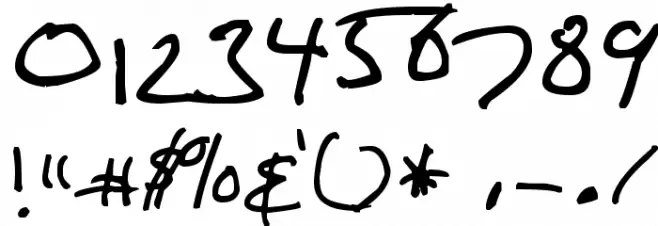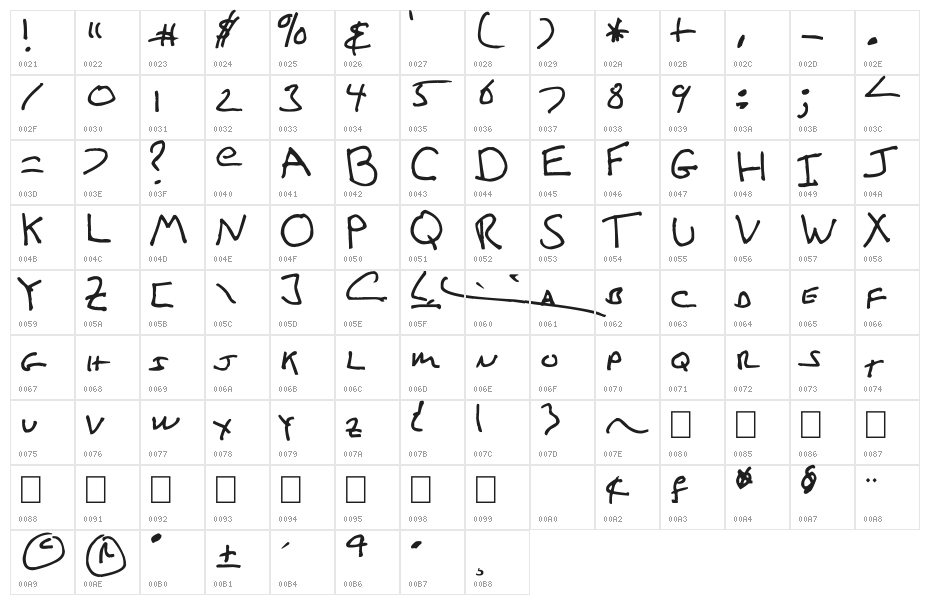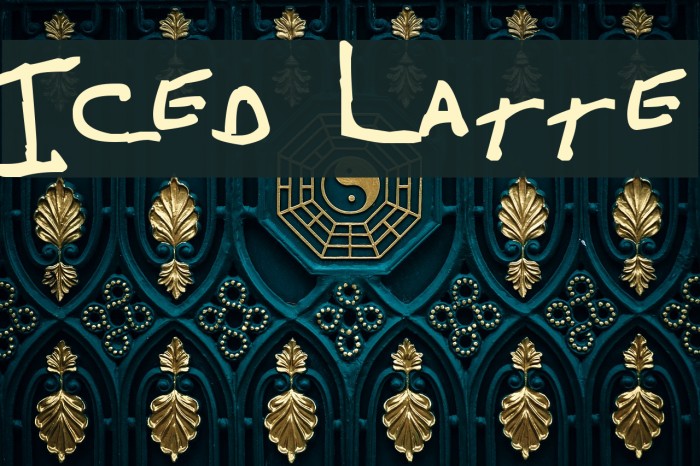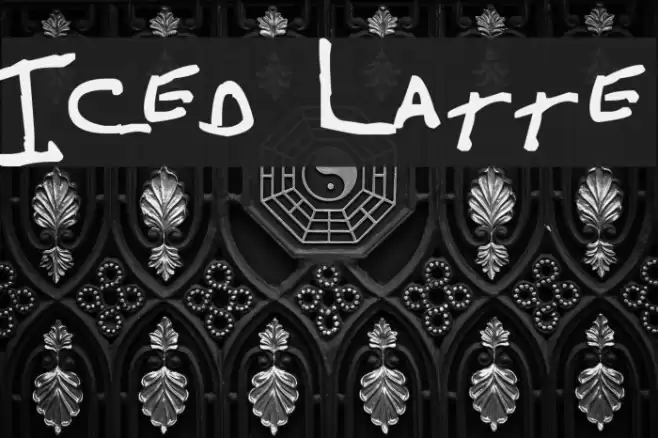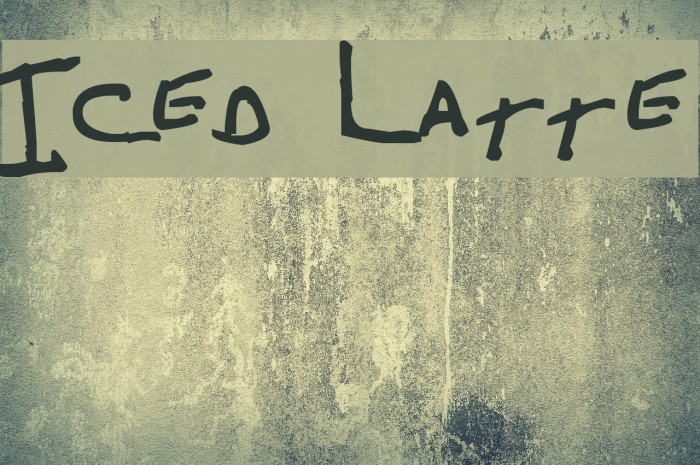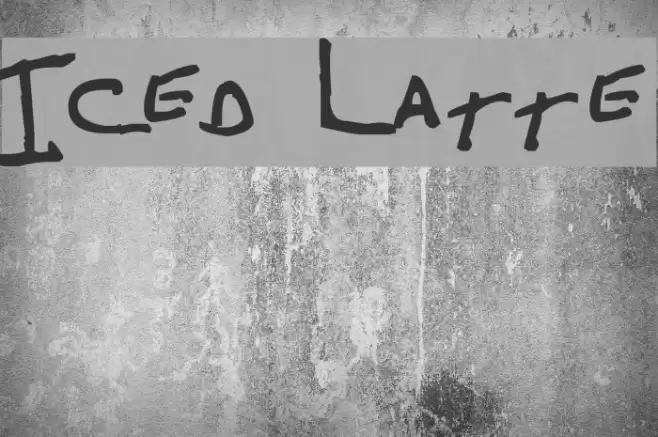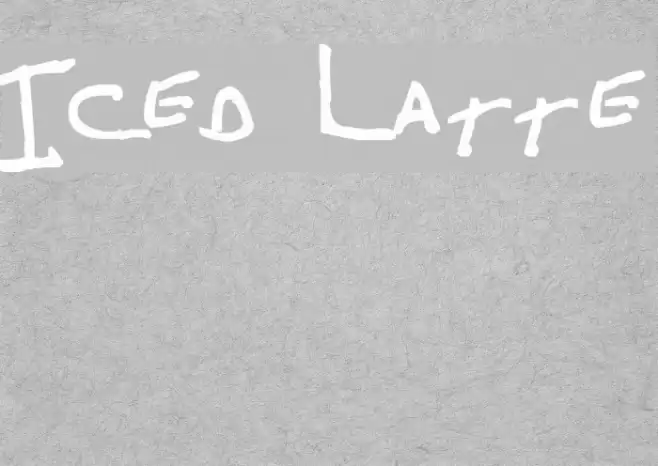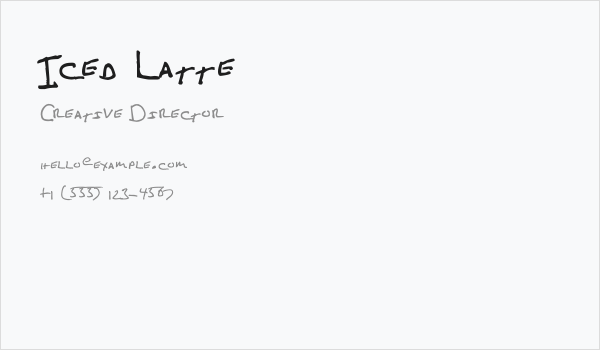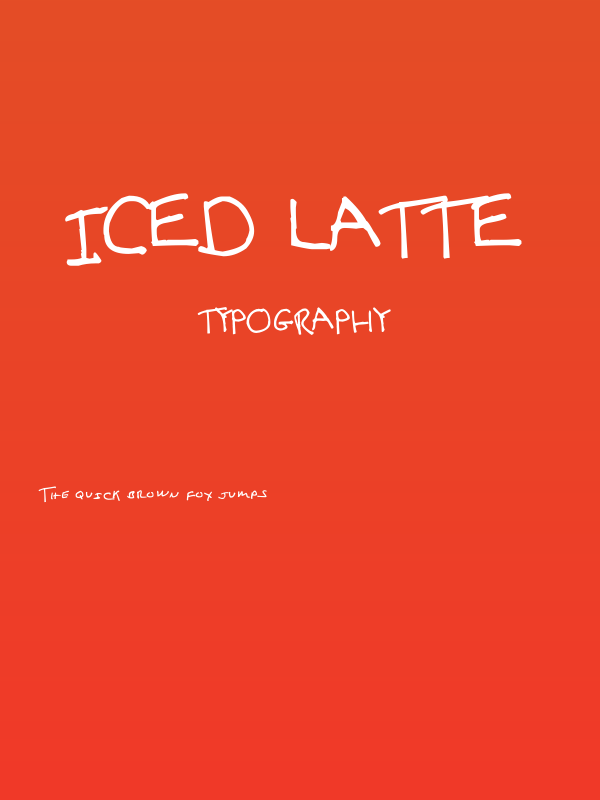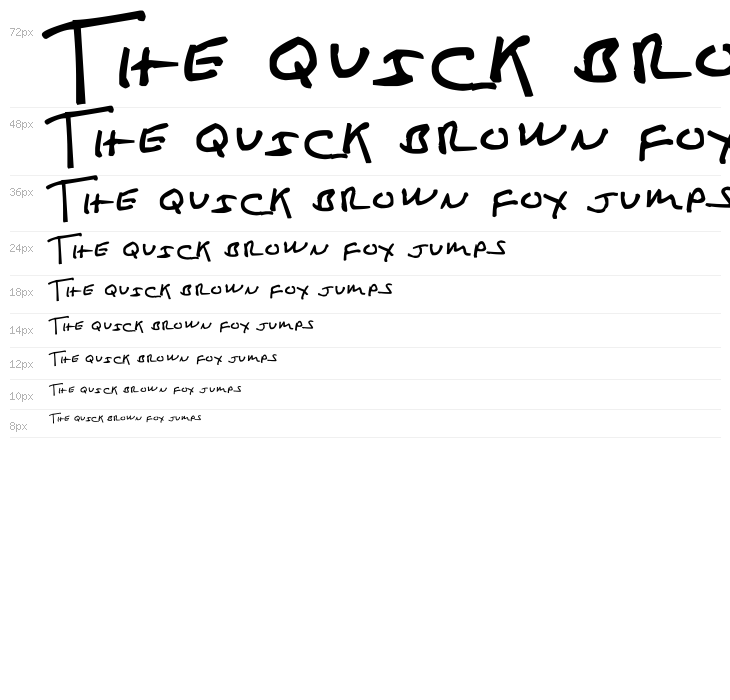
Iced Latte Font
Iced Latte Description
This font exudes a casual and playful handwritten style, characterized by its uneven strokes and organic flow. The letters have a natural, freeform appearance, reminiscent of a quick note or a personal letter. The uppercase and lowercase letters maintain a consistent style, with slight variations that add to the font's charm. Numbers and special characters follow the same informal aesthetic, making them blend seamlessly with the alphabet. The overall look is approachable and friendly, ideal for projects that require a personal touch or a relaxed vibe.
| Use Case | Headlines, Informal text, Personal notes |
| Proposed Projects | Greeting cards, personal blogs, casual invitations, children's books, and informal branding. |